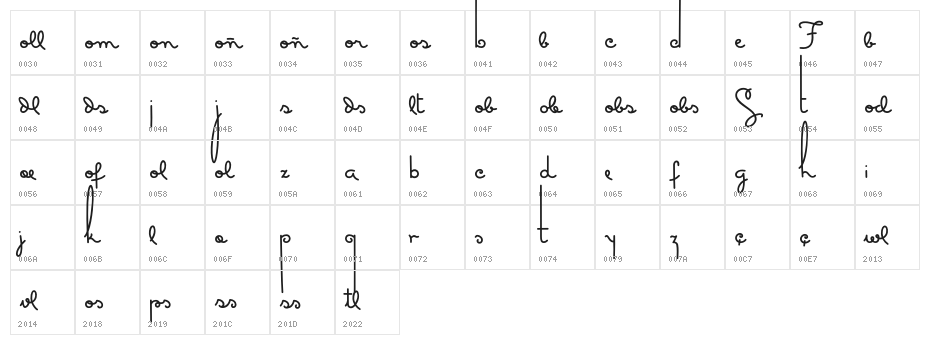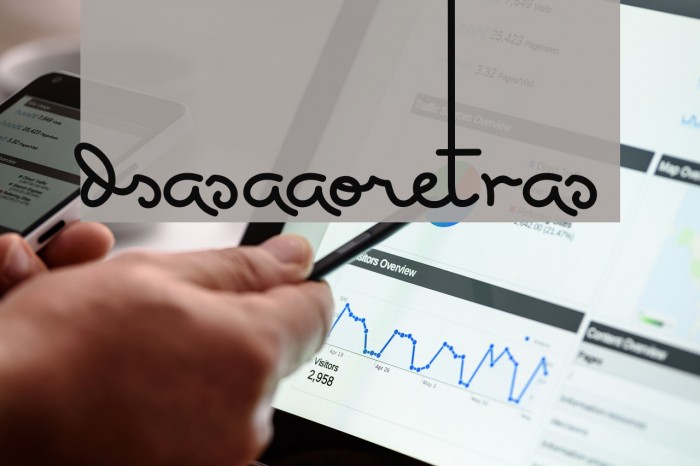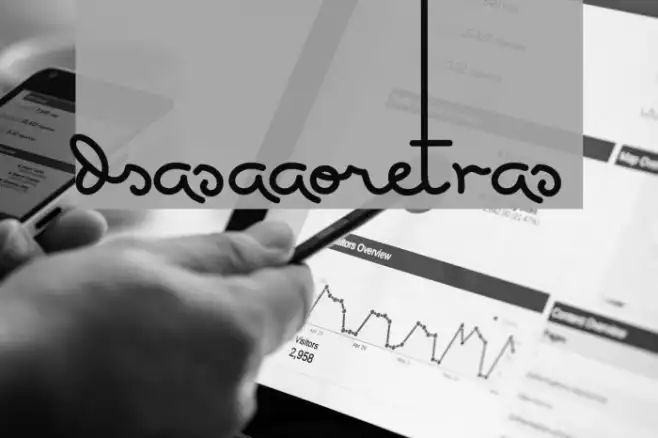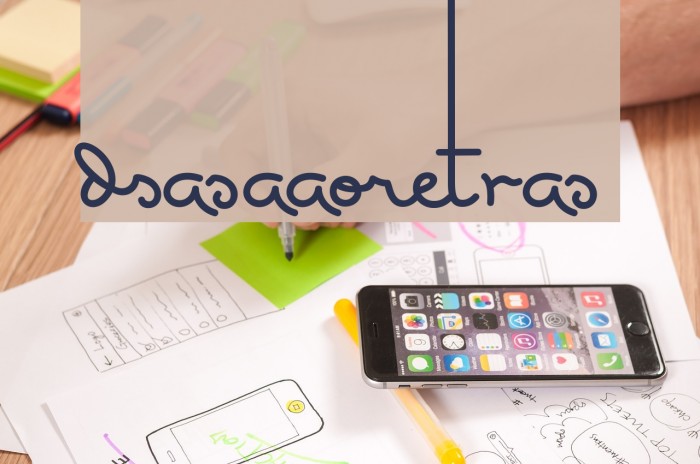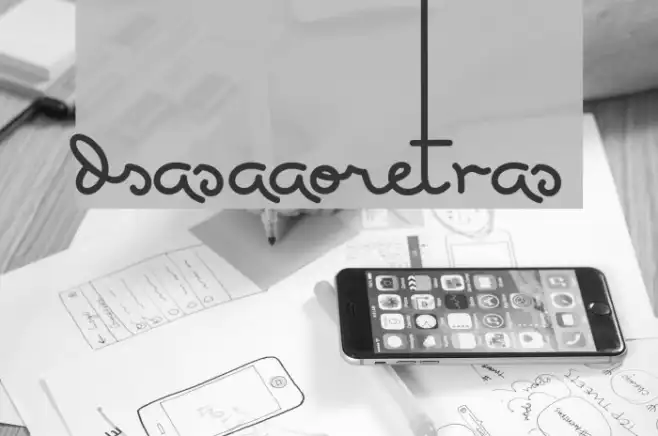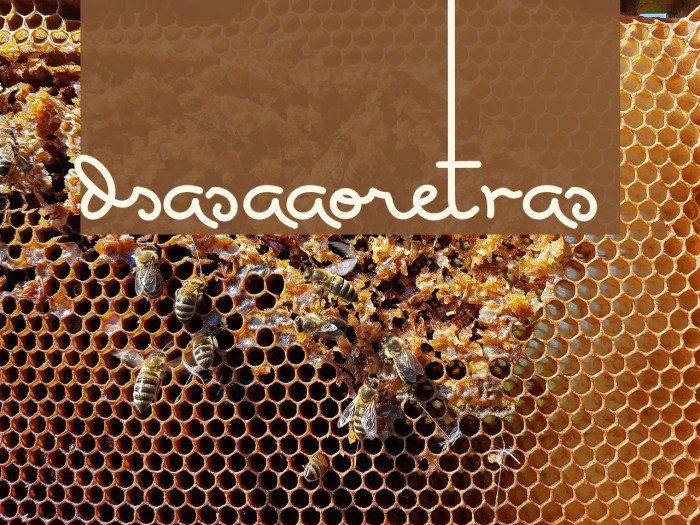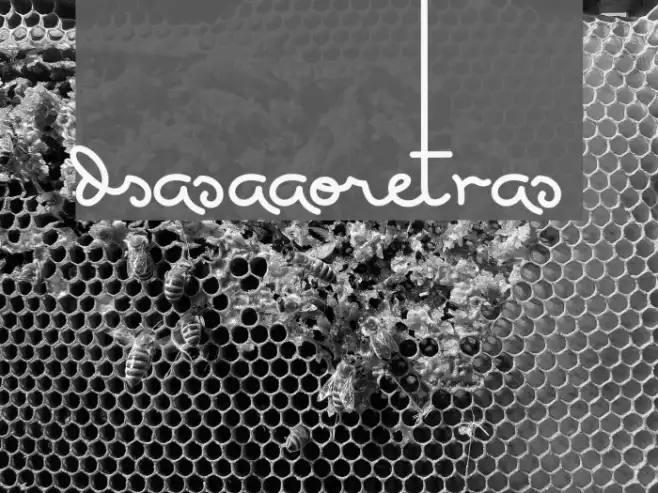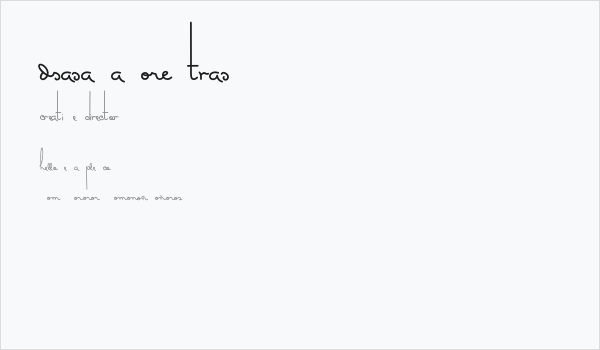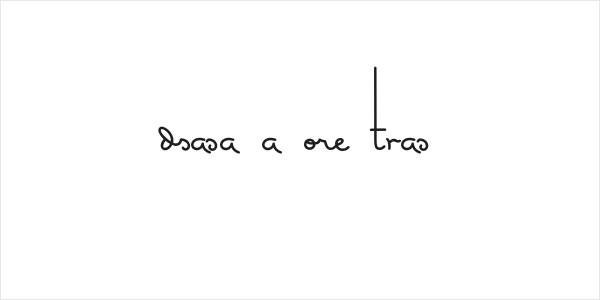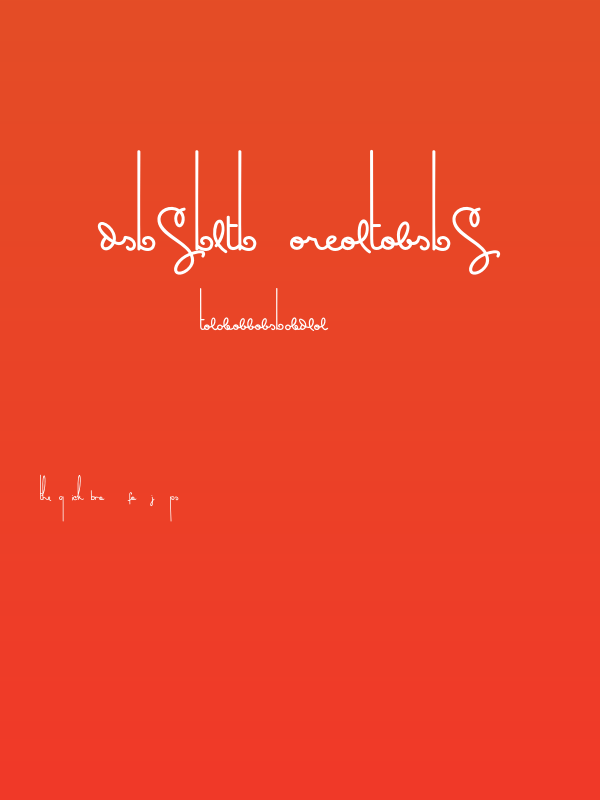
Masana-5Extras Font
Masana-5Extras Description
This font features a playful and whimsical script style with a handwritten appearance. The letters are connected with smooth, flowing lines that give it a casual and friendly feel. The uppercase letters are distinct with unique flourishes, while the lowercase letters maintain a consistent looped style. The overall design is light and airy, making it suitable for projects that require a personal touch. The font includes a full set of characters, including accented letters, which enhances its versatility for various languages.
Proposed ProjectsIdeal for greeting cards, invitations, personal branding, and creative projects that require a friendly and approachable look.